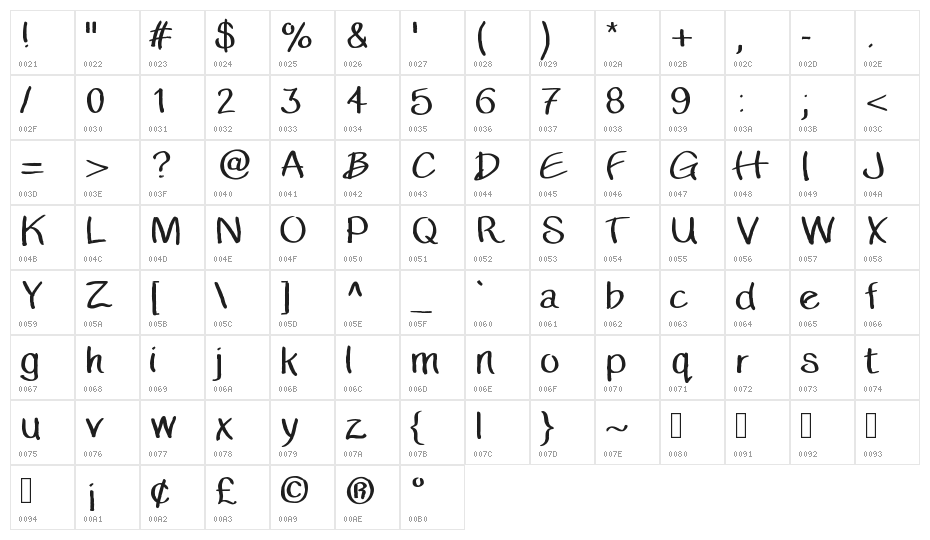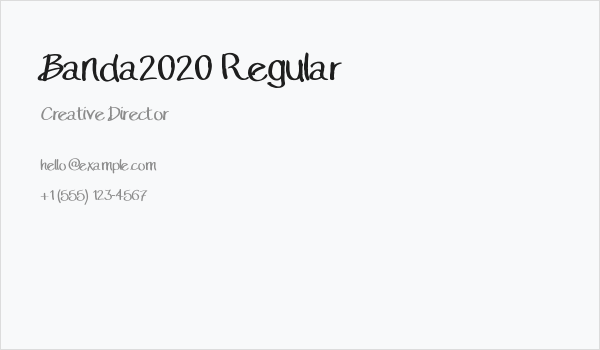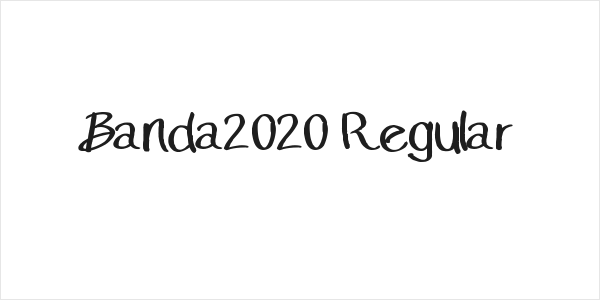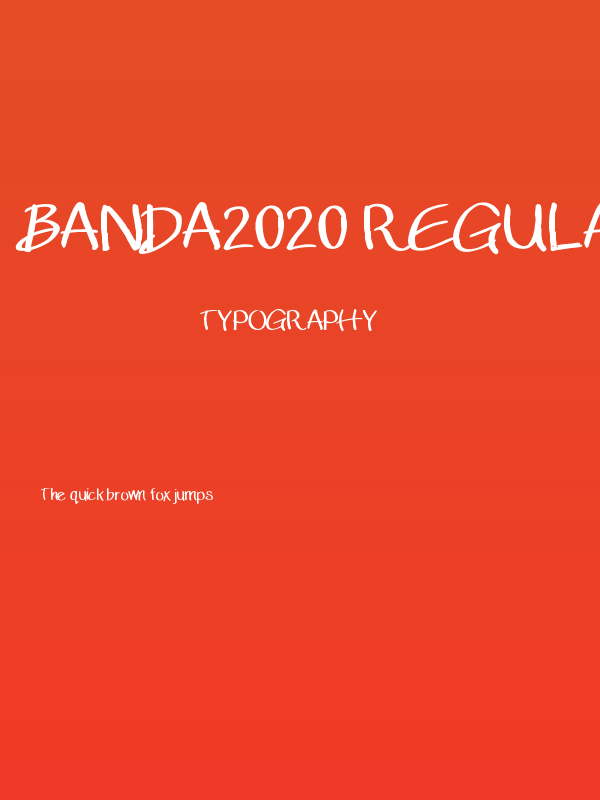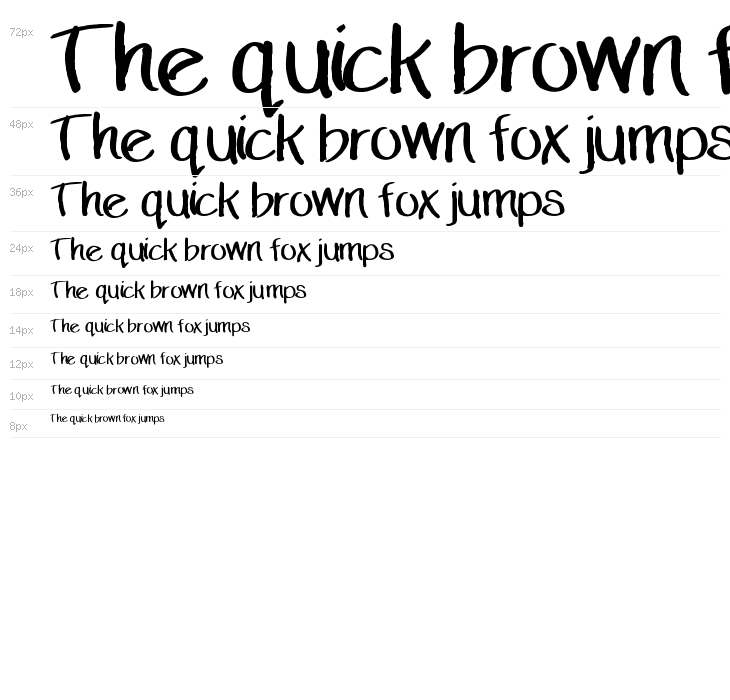
Banda2020 Regular Font
Banda2020 Regular Description
This font features a lively and dynamic handwritten style, characterized by its bold and expressive strokes. The letters have a playful and informal appearance, with a slight slant that adds to its energetic feel. The uppercase and lowercase letters maintain a consistent style, with rounded edges and varying stroke widths that give it a natural, hand-drawn look. The numerals and special characters are equally expressive, maintaining the font's overall aesthetic. This font is perfect for projects that require a personal touch or a creative flair.
| Proposed Projects | Ideal for greeting cards, invitations, posters, and creative branding projects. |